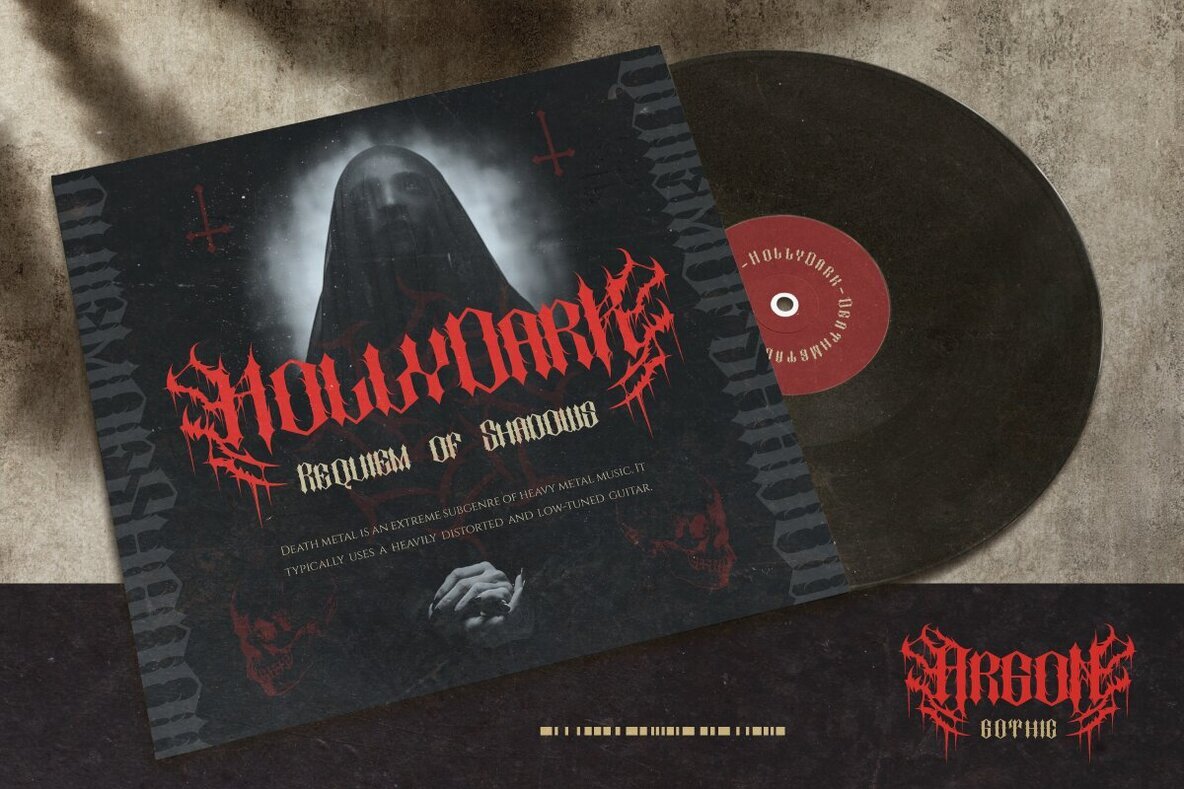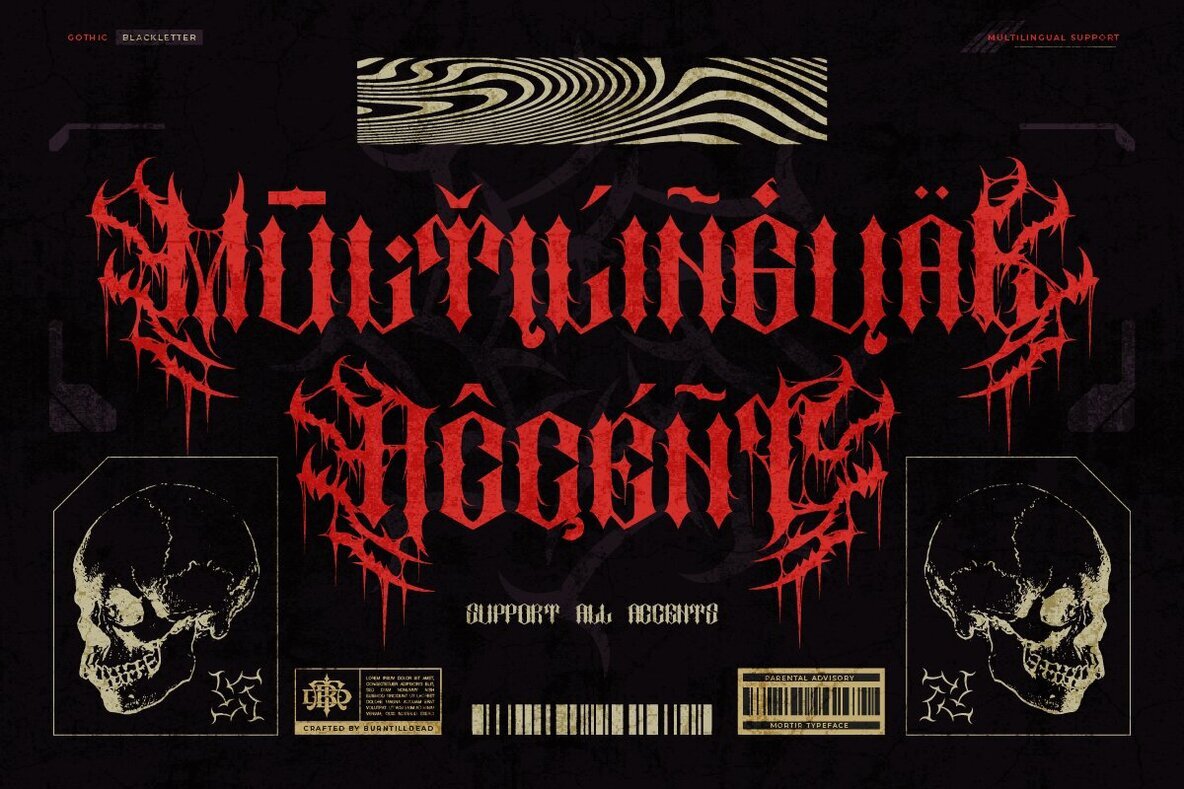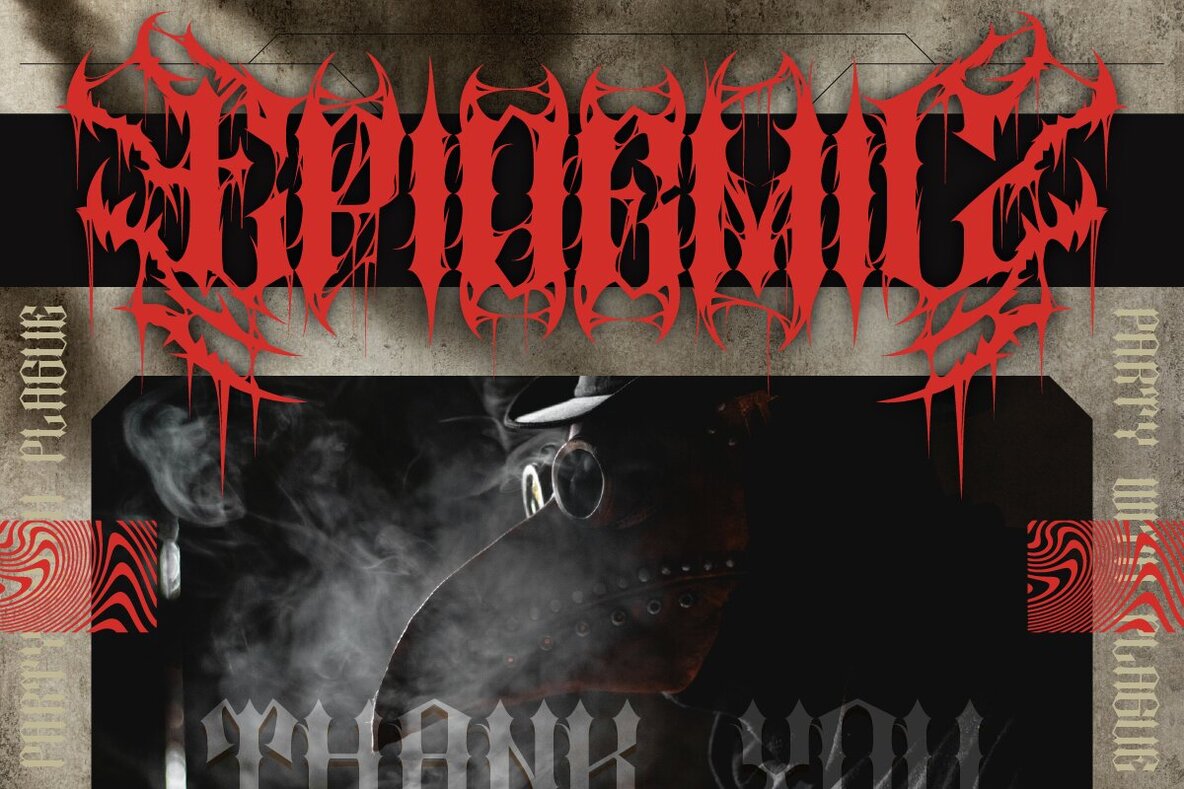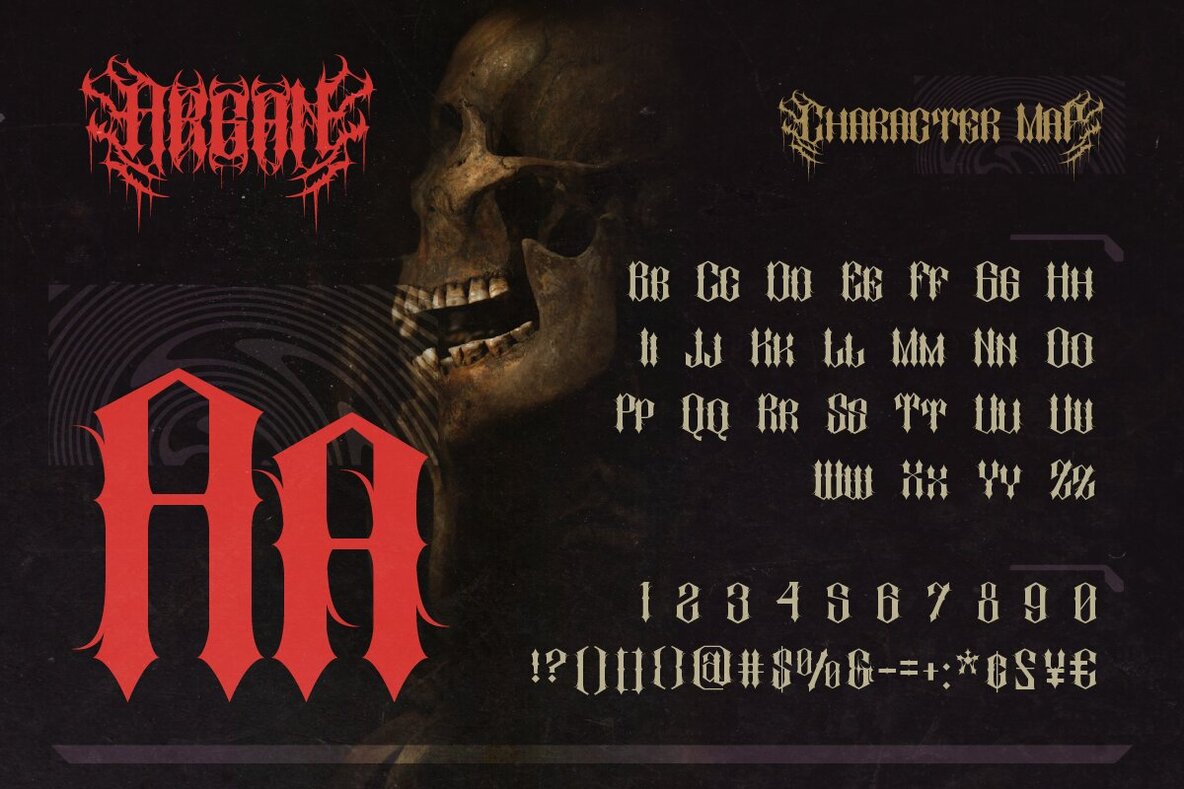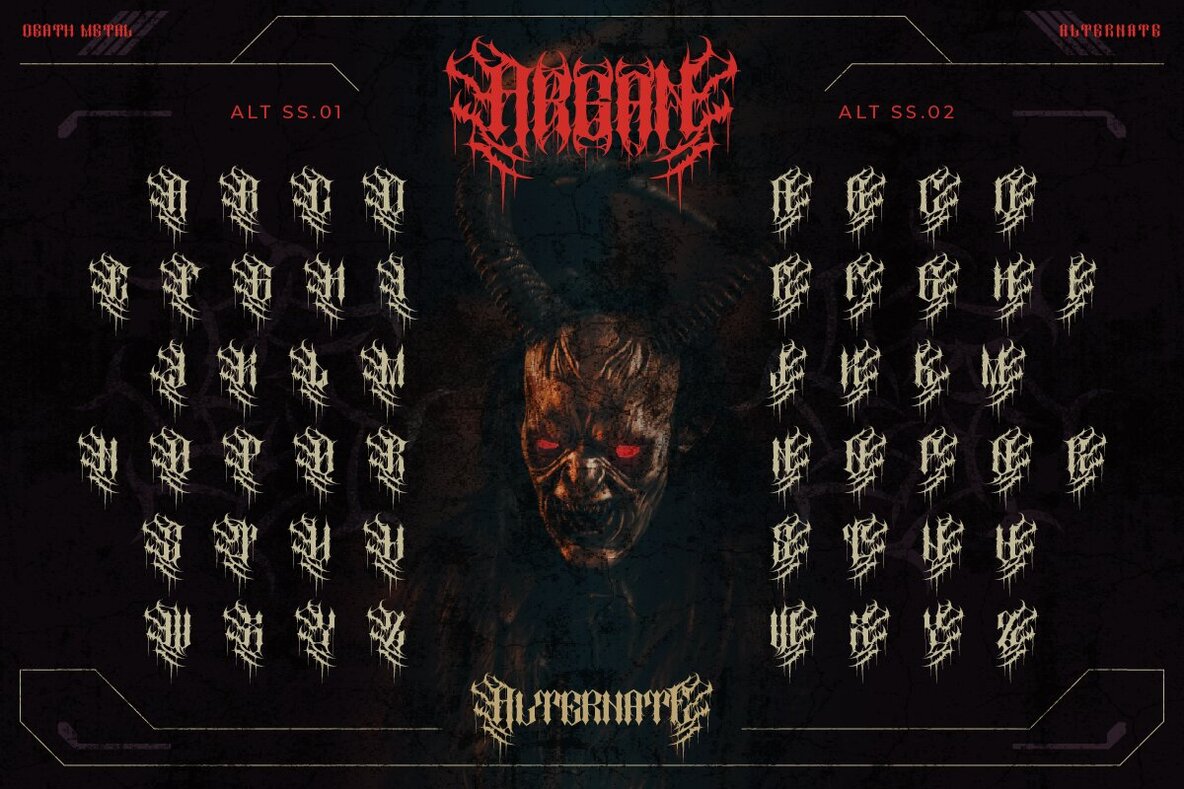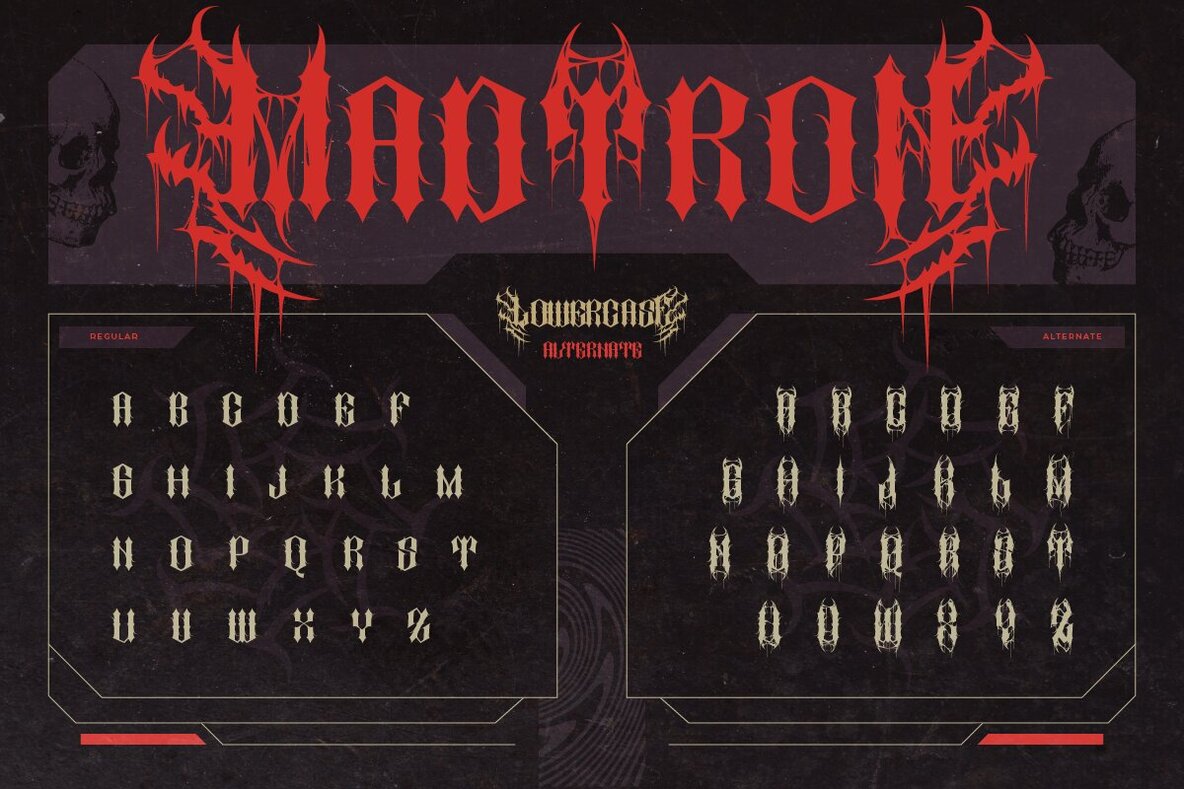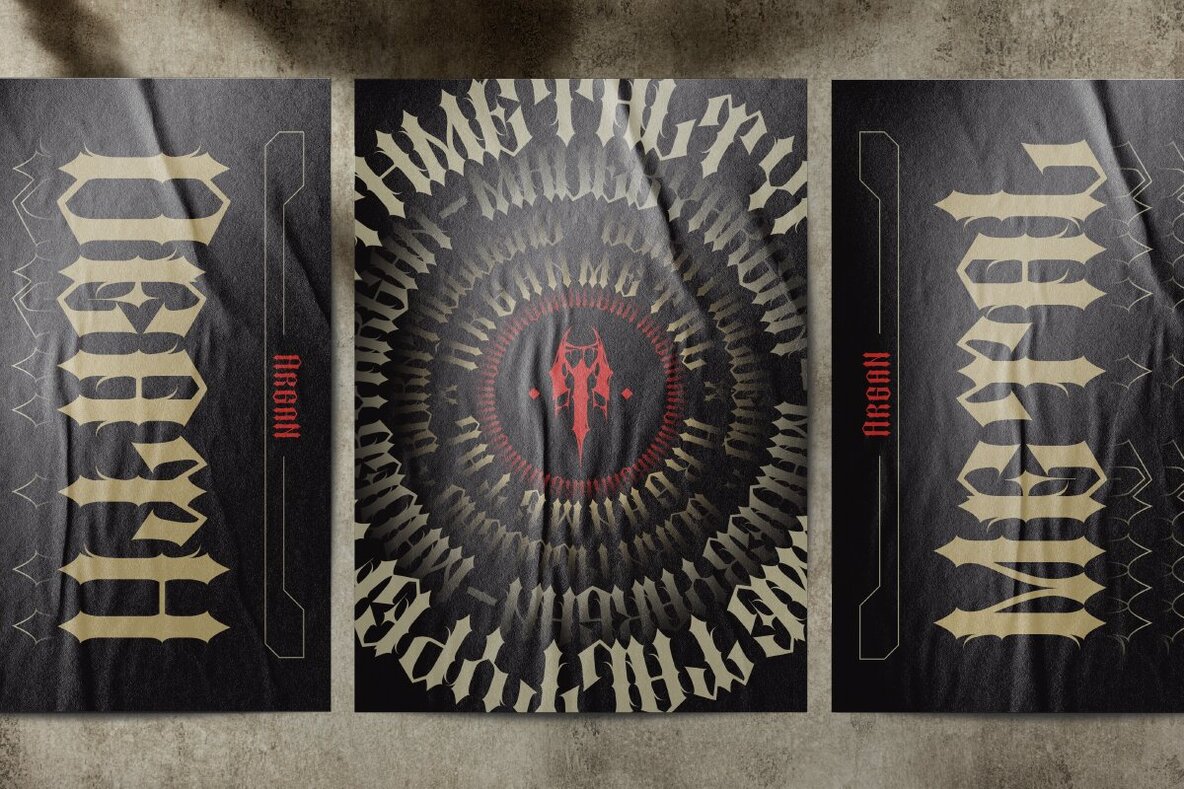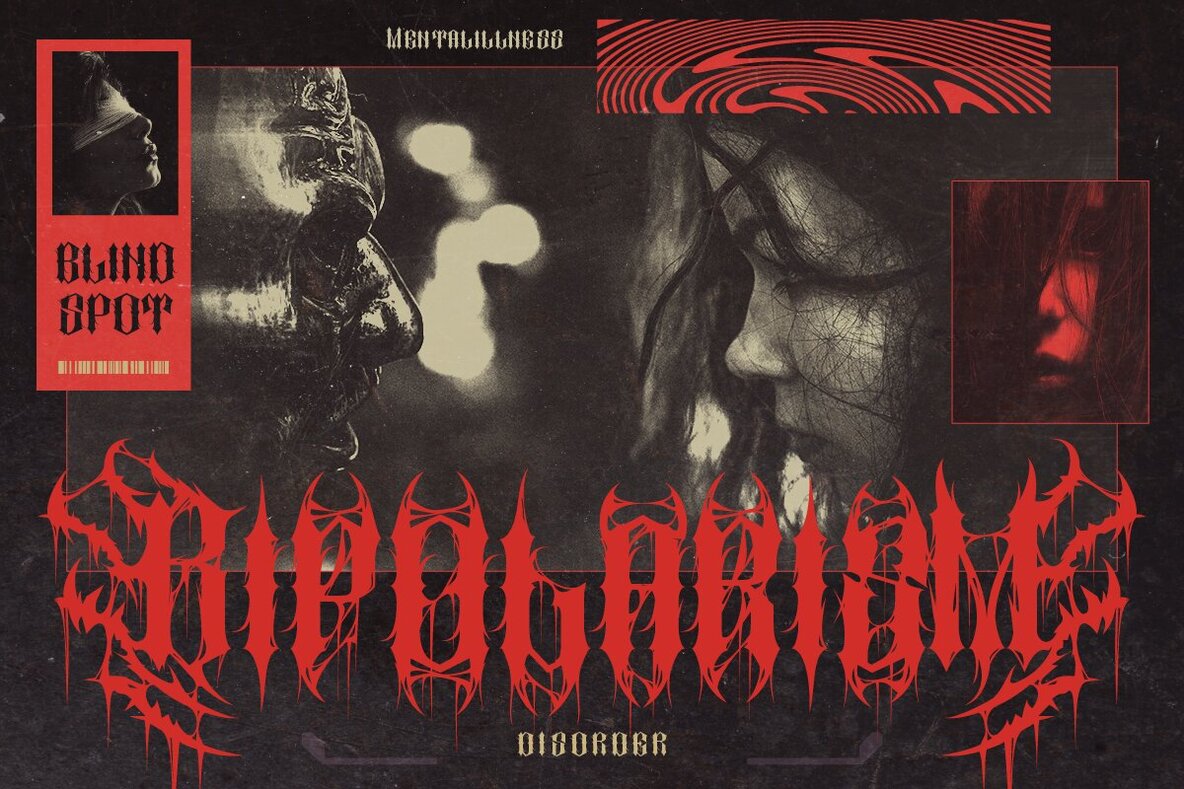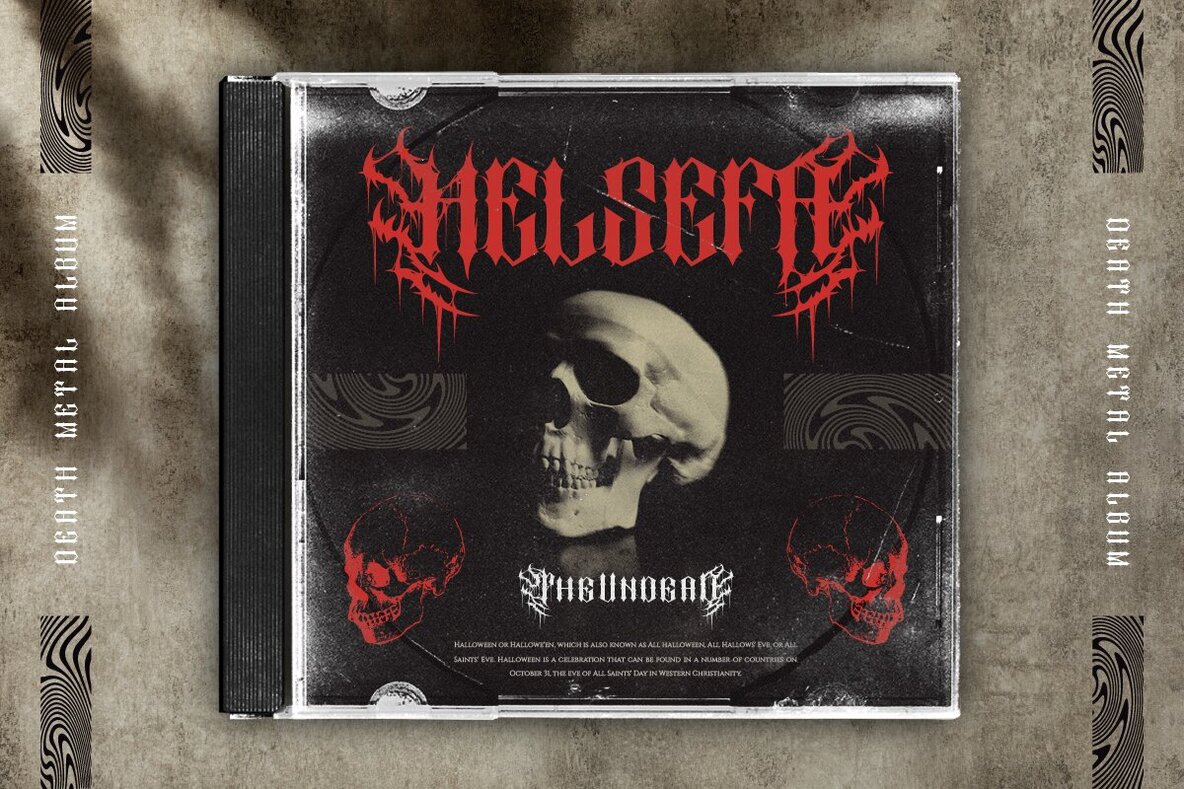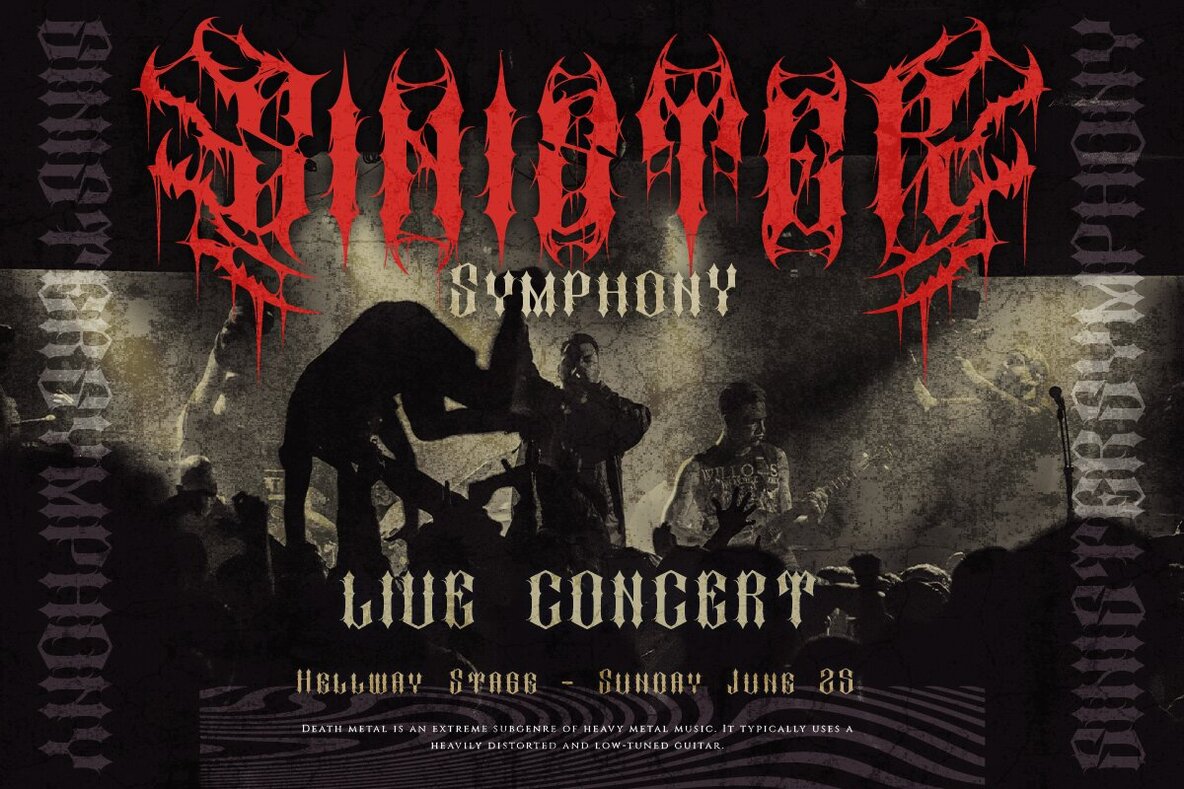
Argan Font
argan Regular
Argan is a black metal font characterized by sharp, angular, and distorted letters, designed to evoke the chaos and darkness emblematic of black metal music. With Argan, break through silence with a loud and violent aesthetic, where each letter conveys brutal visual impact. Argan is ideal for use in metal concert promotional materials, album artwork, concert posters, branding, and any design that demands a death metal touch.Argan: A Black Metal Font With Distorted, Angular Letters